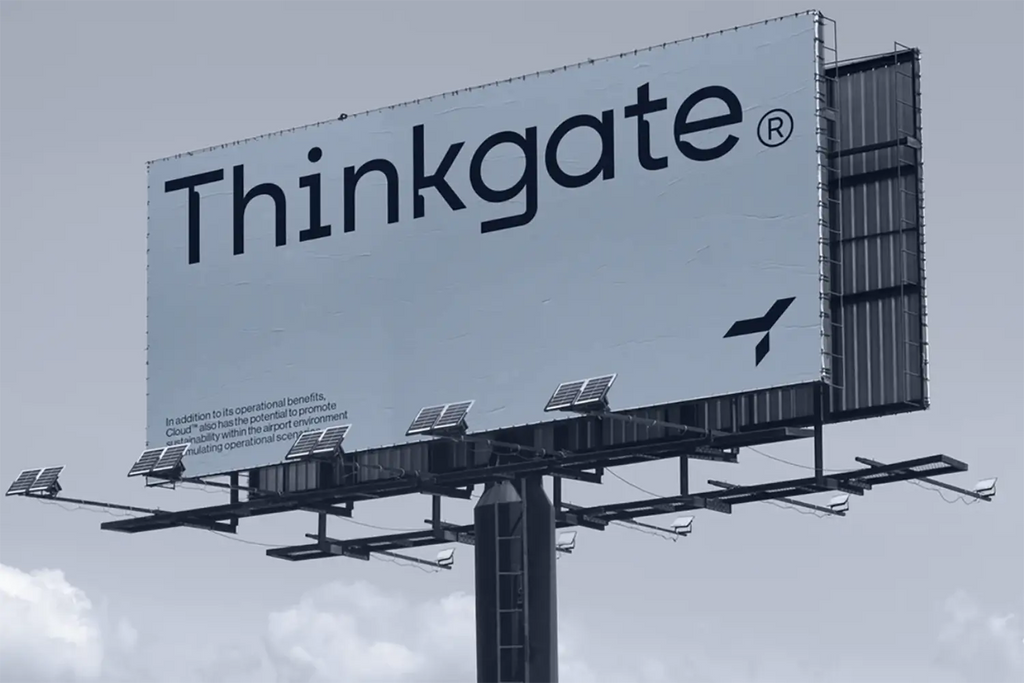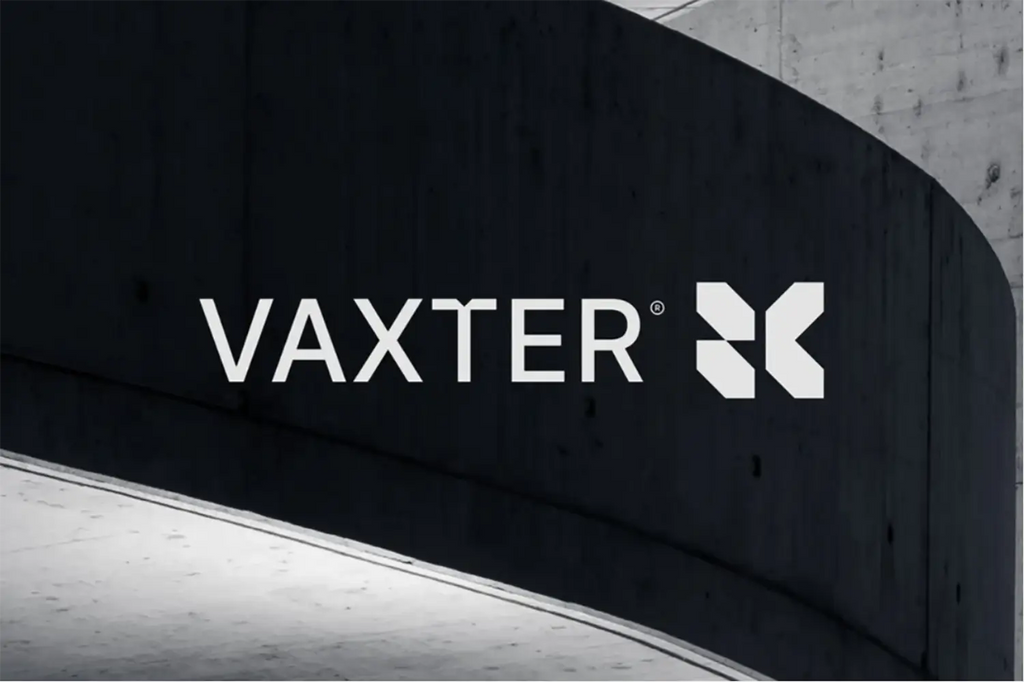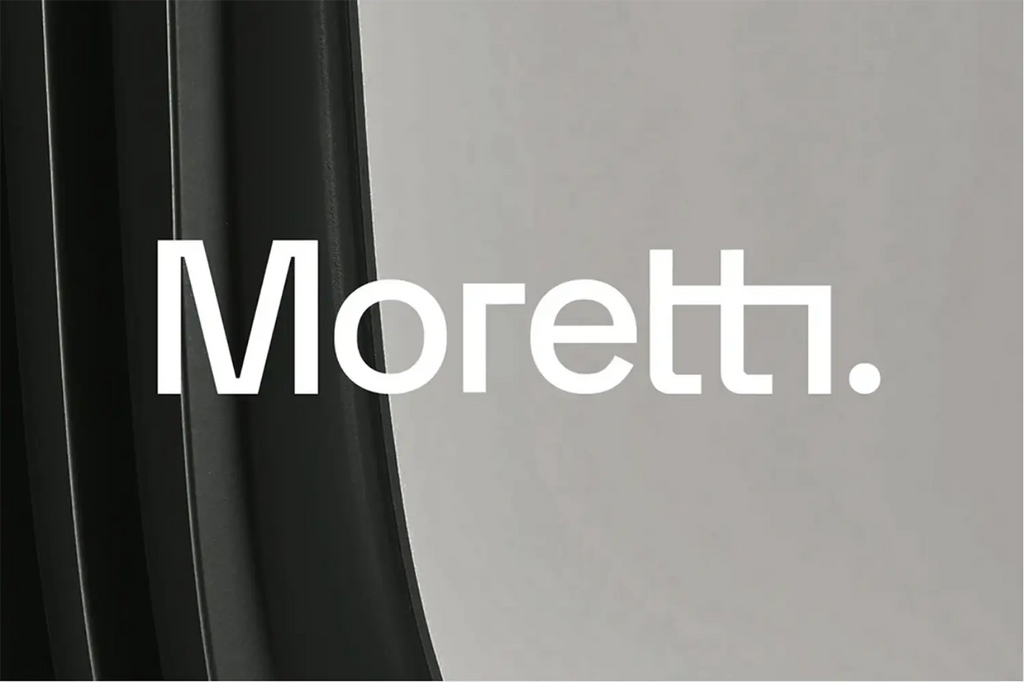
Discovering The Benefits of Sans-Serif Fonts for Logo Designs
Typography plays a major role in how people perceive a brand, and few font categories have influenced modern branding as much as sans-serif typefaces. Defined by their clean letterforms and lack of decorative strokes, sans-serif fonts have become a preferred choice for businesses seeking a modern, professional, and adaptable visual identity. The popularity of sans serif fonts logo design continues to grow because brands now need logos that perform across websites, mobile apps, social media platforms, packaging, and physical signage. A logo must remain clear and recognizable in every setting, regardless of size or medium. Sans-serif fonts help achieve this goal by prioritizing simplicity and readability. From startups and technology companies to lifestyle brands and global corporations, countless organizations rely on sans-serif typography to communicate confidence and clarity. Understanding the advantages of these fonts can help designers and business owners make better decisions when creating a logo that remains effective for years to come.
Why Sans-Serif Fonts Create Strong First Impressions
Clean And Uncluttered Appearance
First impressions often happen in seconds. When people encounter a logo for the first time, they quickly form opinions about the company behind it. Sans-serif fonts contribute to positive first impressions because they remove unnecessary decorative details and present information in a straightforward way. The clean appearance of these fonts creates visual order and allows viewers to focus on the brand name itself. Instead of being distracted by ornamental typography, audiences can absorb the message more efficiently. This simplicity also helps logos feel more polished and intentional.
Modern And Contemporary Brand Personality
Many brands want to project innovation, progress, and confidence. Sans-serif typography naturally supports these qualities because it is commonly associated with modern design principles. The streamlined appearance of these fonts communicates efficiency and relevance without appearing overly formal. Technology companies, creative agencies, digital services, and many consumer-focused brands frequently use sans-serif logos because they align well with contemporary visual trends. Even established businesses often transition from traditional typography to sans-serif alternatives when refreshing their brand identity.
Instant Readability Across Audiences
People process simple shapes faster than complex ones. Because sans-serif fonts use straightforward letterforms, viewers can recognize words more quickly. This immediate readability is particularly valuable when audiences encounter a logo briefly, such as while scrolling online or passing a storefront. A clear first impression increases the likelihood that people will remember the brand and recognize it later.
How Sans-Serif Fonts Improve Logo Readability
Better Visibility At Small Sizes
Modern logos must work in spaces that are much smaller than traditional advertising formats. Social media profile images, mobile app icons, browser tabs, and digital advertisements often display logos at extremely limited sizes. Sans-serif fonts perform exceptionally well in these situations because their simple shapes remain recognizable when scaled down. Fine details that might disappear in more decorative typefaces are less likely to affect legibility. This helps maintain a consistent brand presence across digital platforms.
Clear Recognition From A Distance
Logo visibility is not only important on screens. Physical environments also demand strong readability. Storefront signs, banners, event displays, and vehicle graphics are often viewed from significant distances. The straightforward construction of sans-serif letterforms allows viewers to identify words more easily, even when they are far away. Clear recognition helps reinforce brand awareness and improves communication in crowded visual environments.
Reduced Visual Noise
Complex typography can create unnecessary distractions, particularly when combined with symbols, colors, or graphic elements. Sans-serif fonts reduce visual noise by keeping letterforms clean and easy to interpret. This simplicity allows the audience to focus on the overall logo rather than spending time deciphering the typography. As a result, the brand message becomes more direct and effective.
The Versatility Of Sans-Serif Fonts Across Brand Applications
Consistent Appearance Across Digital Platforms
One of the strongest advantages of sans serif fonts logo design is versatility. Modern brands interact with audiences through websites, mobile applications, social media channels, email marketing, and digital advertising. Sans-serif fonts maintain their clarity and structure across these environments. Their clean shapes translate well between different screen sizes and resolutions, helping brands preserve a consistent visual identity regardless of where customers encounter them.
Effective Performance In Print Materials
Although digital platforms are important, print remains a valuable branding tool. Business cards, brochures, product packaging, promotional materials, and branded merchandise all require typography that reproduces reliably. Sans-serif fonts generally print cleanly and maintain readability across various materials and production methods. Their simplicity minimizes the risk of losing detail during printing, making them dependable for both large and small applications.